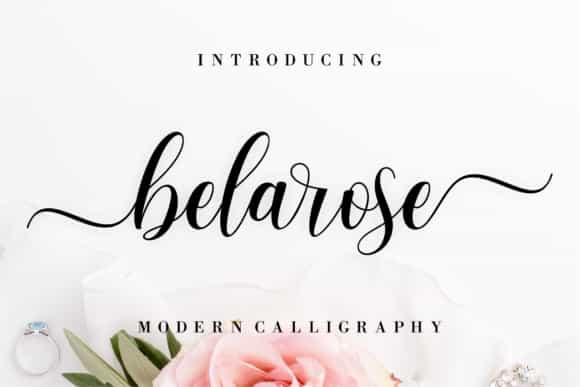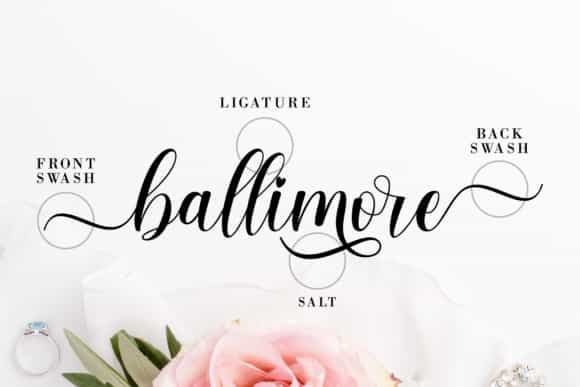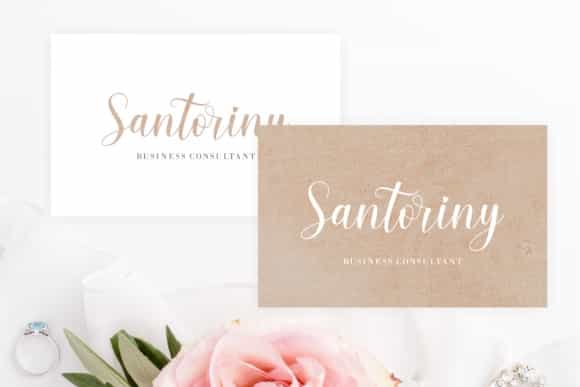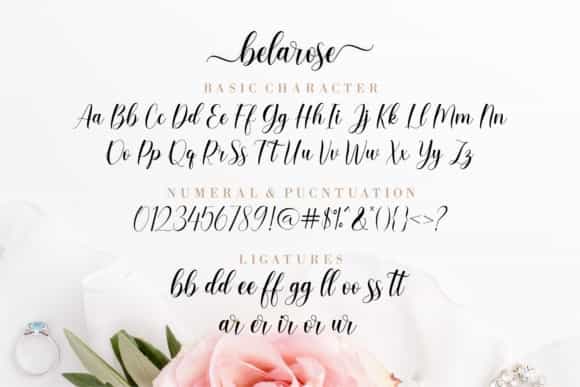
Belarose is trendy new contemporary Calligraphy Font that comes with some elegant extras, a full-featured script font with a subtle dip pen calligraphy texture, and lots of OpenType features. Written by hand using delicate strokes that are thin and larger heavy strokes Belarose can be especially well-suited for invitations branding, editorial, and invitation design.